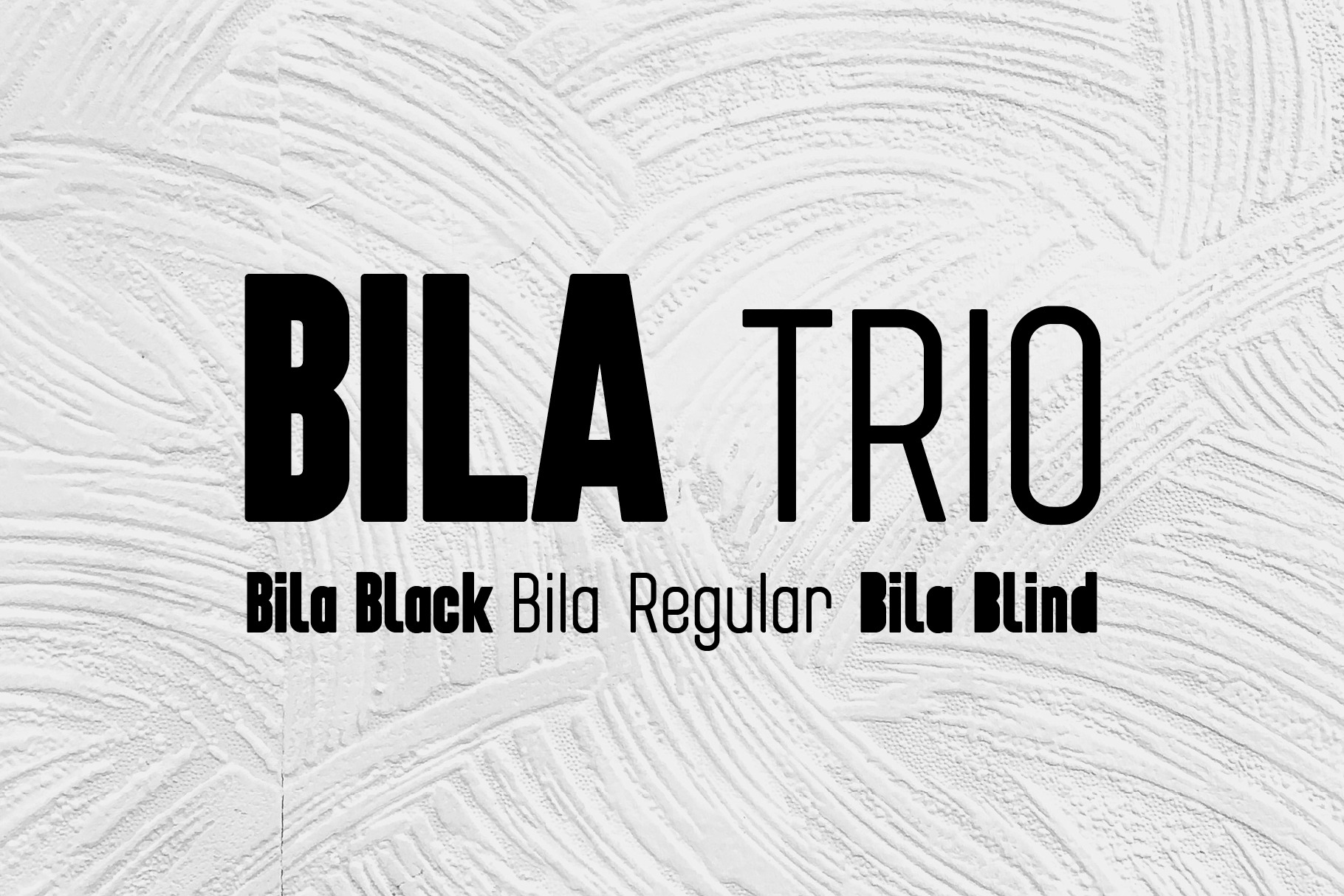
About the Product Bila is recommended for editorial headlines, in Books and magazines, posters, t-shirts. Available with caps and lowercase for more creativity.
- Uppercase, Lowercase, Numerals, Punctuation & Symbols.
- Diacritics for Multilingual Support